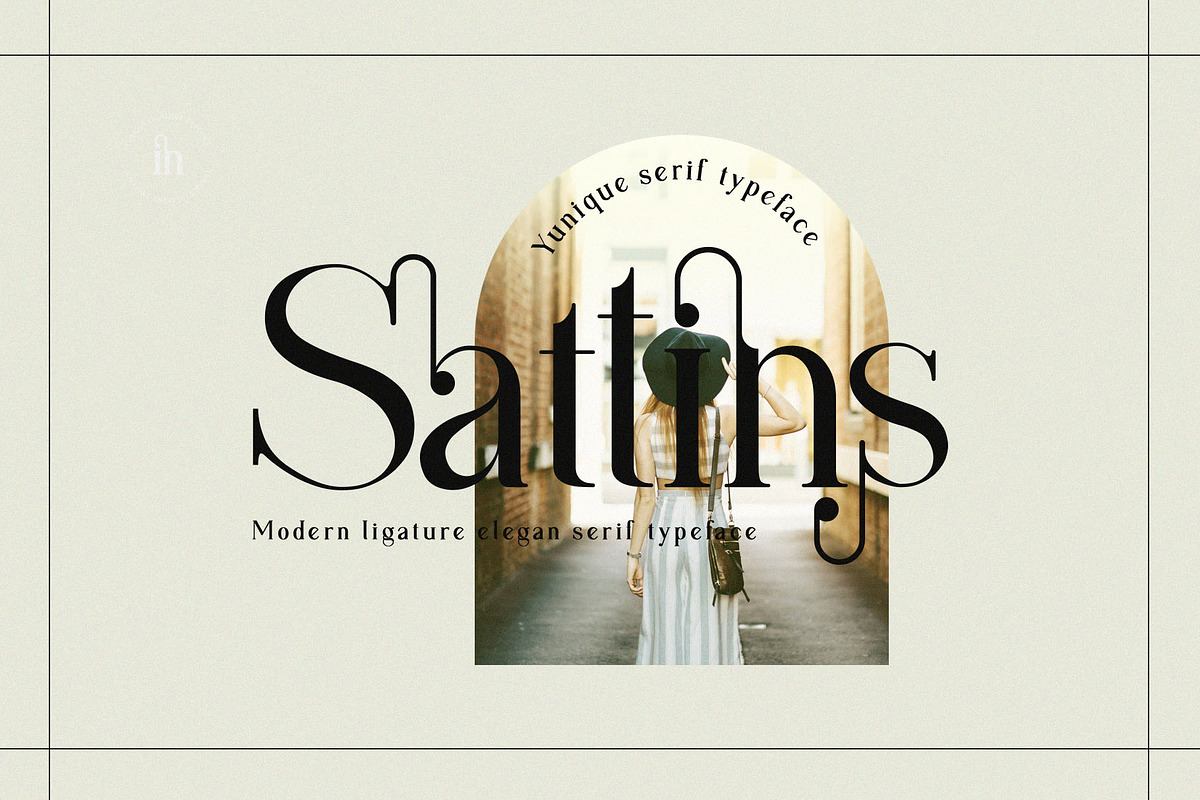
Sattins Ligature Serif Typeface Free Download
Sattins Ligature Serif Typeface Free Download is an elegant and modern serif font designed with unique ligatures that enhance its distinctive style. Perfect for high-end branding, editorial design, logos, and luxury packaging, this typeface combines classic serif elements with a touch of sophistication.
The ligatures give Sattins an artistic and personalized feel, making it ideal for projects that require refined typography with a modern twist. Whether you're designing for a fashion brand, a premium product, or any upscale project, Sattins adds a creative and stylish edge to your designs.